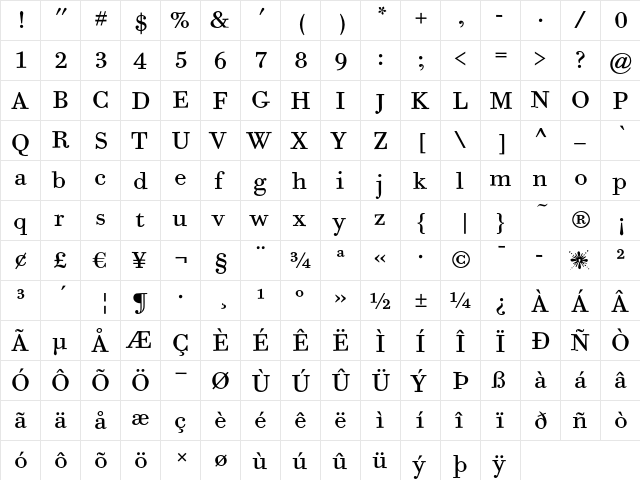
Bodoni Six ITC Book
Design Context for Bodoni Six ITC Typeface
Bodoni Six ITC offers clean, dependable letterforms without strong stylistic allegiance, making it a practical choice for designers who need flexibility.
Pro Tip: Pair Bodoni Six ITC with a font of contrasting weight or personality to build a more expressive typographic hierarchy.